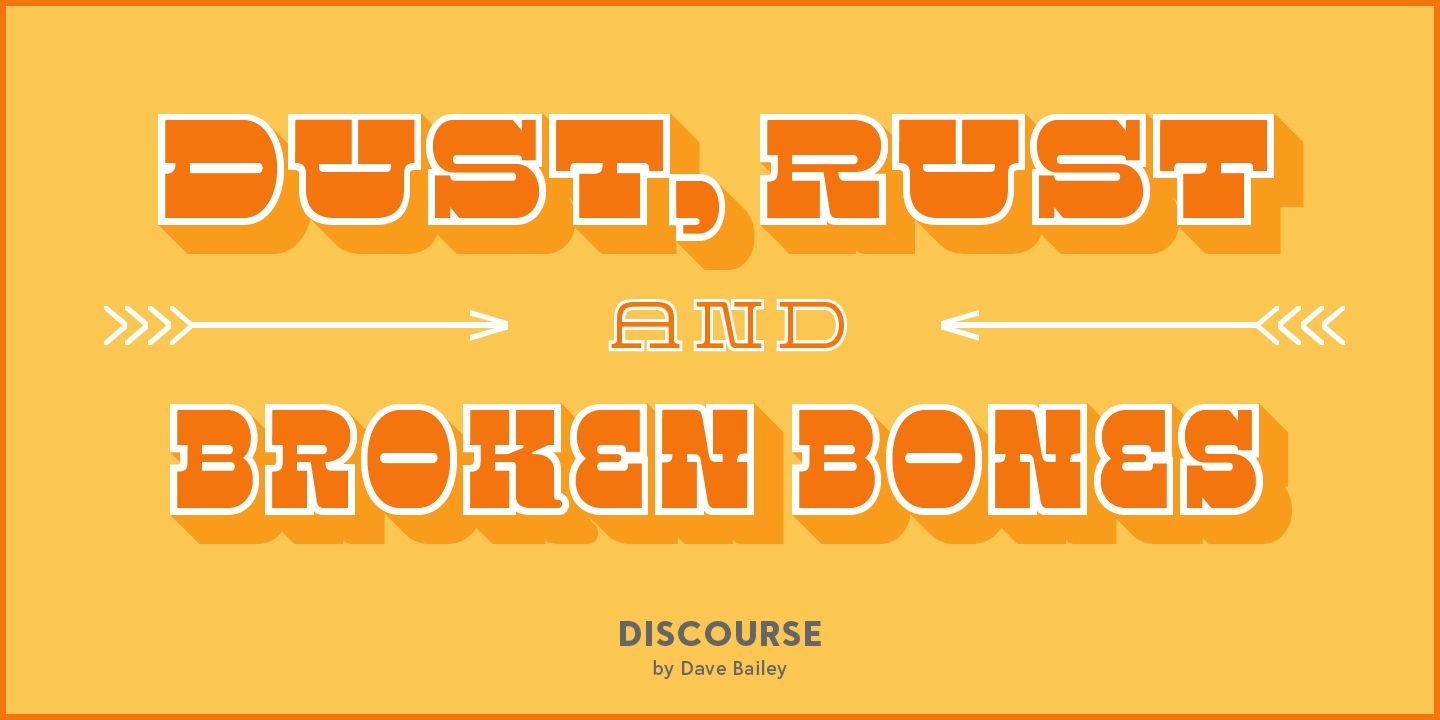
Discourse Font
Discourse Font is perfect for academic journal publishing, scholarly debate platforms, intellectual discussion forums, university press materials, philosophical publication layouts, research documentation, educational conference branding, and thoughtful editorial applications. This articulate typeface excels in applications where intellectual discourse and scholarly communication are essential for creating authoritative and engaging brand experiences that foster meaningful dialogue and academic exchange.
What makes Discourse Font truly exciting is its sophisticated embodiment of intellectual dialogue and scholarly debate that captures the essence of academic discourse and the refined nature of thoughtful communication. The font features carefully balanced letterforms with scholarly character details and systematic proportions that mirror the structured approach of academic writing and the clarity required for complex intellectual discussions. Its intellectual personality and discursive character create an immediate sense of academic authority and thoughtful engagement that resonates with audiences seeking rigorous analysis and meaningful intellectual exchange. The typeface's scholarly heritage and debate appeal make it perfect for brands wanting to convey expertise, thoughtfulness, and connection to the essential principles of academic discourse and intellectual inquiry.
The Discourse Font family includes multiple weights optimized for extended reading, complemented by scholarly alternates and academic-inspired decorative elements. The font offers comprehensive character sets with academic symbols, scholarly ligatures, and intellectual styling details that enhance its authoritative aesthetic. Additional graphic elements including discussion patterns, academic motifs, scholarly ornaments, and intellectual flourishes provide designers with complete branding tools rooted in academic tradition and scholarly communication culture.